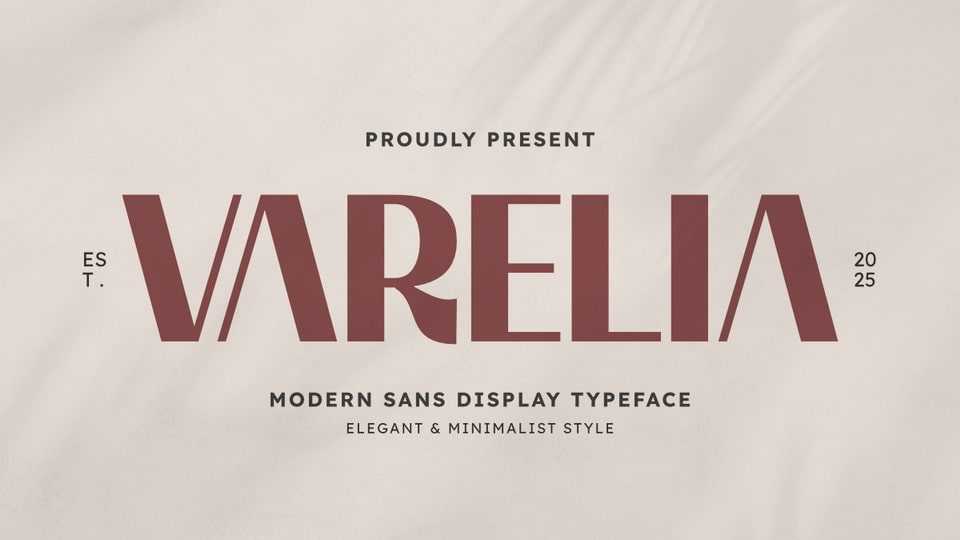
Download Varelia font, a modern sans display typeface with an elegant and minimalist style. Elevate your design projects with Varelia, a sophisticated sans-serif font.
Designer: Masyafi Studio